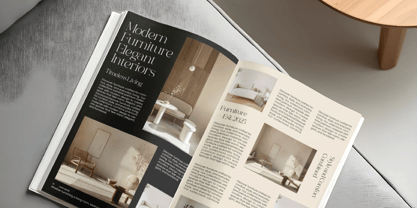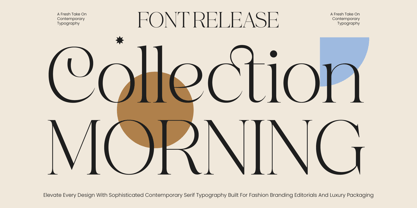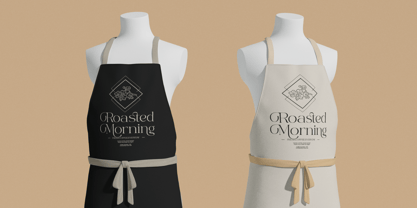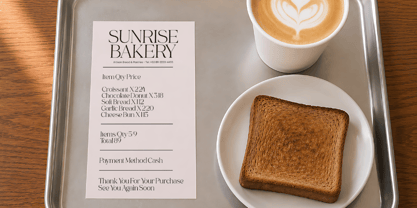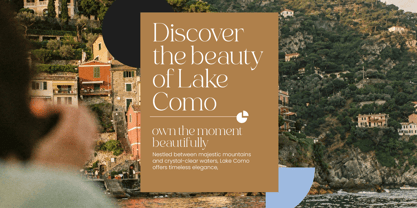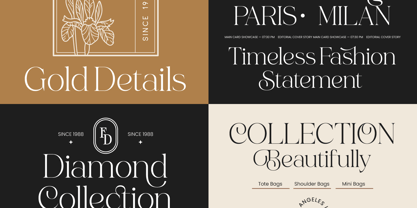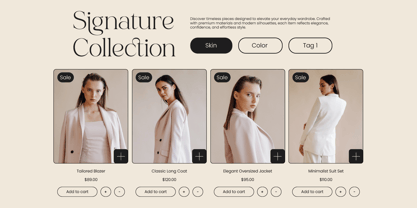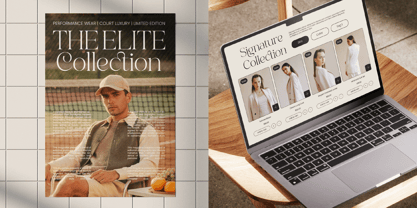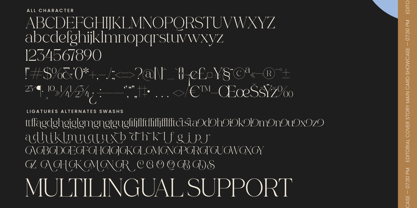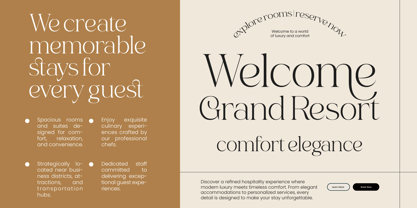
Collection Morning
von Timelesstype Studio
Die Schriftfamilie Collection Morning wurde von Heru Utama Putra entworfen und von Timelesstype Studio veröffentlicht. Collection Morning enthält 2 Stile und Familienpaketoptionen. Mehr über diese Familie
Elevate your creative vision with the refined elegance of Collection Morning – Modern Contemporary Serif. This typeface is a masterpiece of high-contrast design, blending sharp serifs with graceful, sweeping curves to command attention in any luxury branding environment. Its sophisticated silhouette is meticulously crafted to offer a premium aesthetic that feels both timeless and cutting-edge, making it the definitive choice for high-impact editorial layouts.